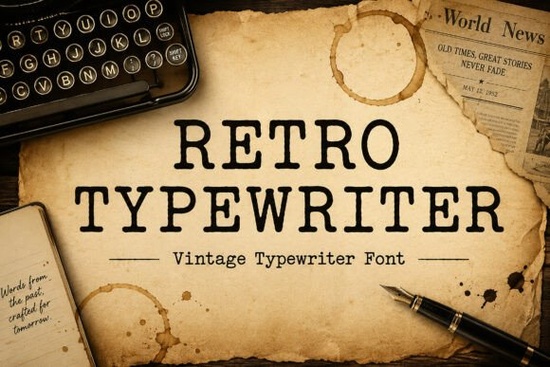
If you're looking for a typeface that brings that satisfying clack of keys and the slightly uneven ink of a real typewriter to your projects, Retro Typewriter is worth a close look. This vintage-inspired serif typeface was designed to capture the authentic feel of classic typewritten documents without needing an actual typewriter on your desk. It's clean enough to stay readable but carries just enough imperfection to feel genuinely retro.
What Makes Retro Typewriter Feel Authentic?
Most "typewriter" fonts look too digital. They're either perfectly smooth or so distressed they're hard to read. Retro Typewriter sits in the sweet spot. The letterforms have subtle irregularities slightly uneven baselines, varied ink weight that mimic what real typewriter output actually looked like. These small details matter when you're trying to evoke a specific era or mood.
The font works as a serif typeface, which gives it structure and readability, but the typewriter styling adds character that a standard serif can't match. It's the kind of font that makes people pause and feel something nostalgia, curiosity, or trust, depending on how you use it.
What Can You Use a Typewriter Font For?
This is where Retro Typewriter really shines because its use cases are surprisingly broad:
- Book covers especially mystery, thriller, historical fiction, or true crime genres
- Posters and editorial layouts for events, films, or publications with a vintage angle
- Branding coffee shops, stationery brands, independent publishers, and writer-themed businesses
- Packaging design artisanal goods, rustic products, and anything that benefits from a handcrafted look
- Journals and diaries covers, interior pages, and decorative spreads
- Quotes and typography art wall prints, greeting cards, and social media posts
- Print-on-demand t-shirts, mugs, pillows, and tote bags
- Social media graphics Instagram posts, Pinterest pins, and promotional banners
For typewriter enthusiasts and designers who appreciate vintage aesthetics, this font delivers a specific mood that's hard to replicate with modern typefaces.
Is Retro Typewriter a Good Choice for Print-on-Demand Sellers?
Absolutely. One of the biggest challenges in print-on-demand is standing out in a crowded marketplace. Retro designs consistently perform well on platforms like Etsy, Redbubble, and Amazon Merch because they appeal to a wide audience from millennials who love vintage aesthetics to older buyers who feel genuine nostalgia.
Retro Typewriter pairs well with simple layouts and bold statements. Think short quotes, literary references, or witty one-liners on a t-shirt. The font does the heavy lifting visually, so you don't need complicated graphics to make a design sell.
How Does It Compare to Other Serif Fonts?
It depends on the project. If your design calls for something romantic and delicate, a serif font with soft, feminine curves might be a better fit. For elegant invitations or luxury branding, refined serif typefaces with classic proportions tend to work better.
Retro Typewriter is the right choice when you specifically want that analog, lived-in, editorial feeling. It's not trying to be elegant or delicate it's trying to feel real, like someone actually typed it on a machine from the 1960s. That distinction matters for the right project.
Tips for Pairing Retro Typewriter with Other Fonts
Typewriter fonts work best when they're not competing with too many other typefaces. Here are some pairing ideas:
- With a clean sans-serif for body text or supporting copy that needs to stay readable
- With a handwritten font to create a mixed-media journal or scrapbook feel
- With a bold display font for headlines, using the typewriter style for subtitles or accents
- With a second typewriter font in different weights or sizes for a layered editorial look
Keep your color palette simple too. Black on cream, dark brown on kraft paper, or white on dark backgrounds all work naturally with this style.